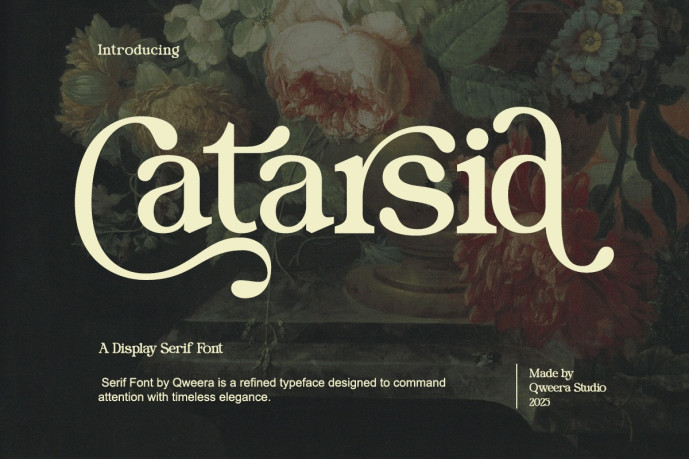
Catarsid – Modern Serif Font
Catarsid – Modern Serif Font  is a retro display serif typeface that blends vintage aesthetics with modern sophistication. Its bold letterforms and flowing serifs create a timeless look, perfect for editorial layouts, packaging, and creative brand identities. With its elegant curves and handcrafted character, Catarsid evokes classic charm and refined artistry.
Features:
• Regular & Italic
• Uppercase & Lowercase Letters
• Alternates & Ligatures